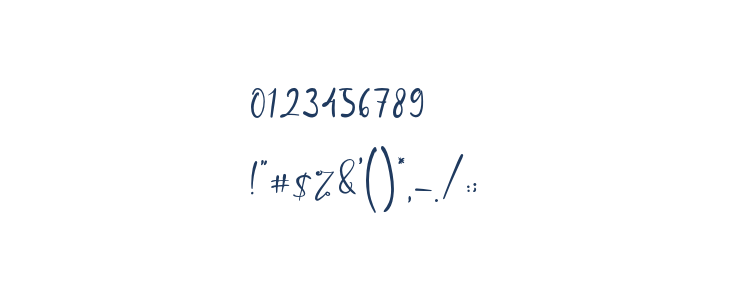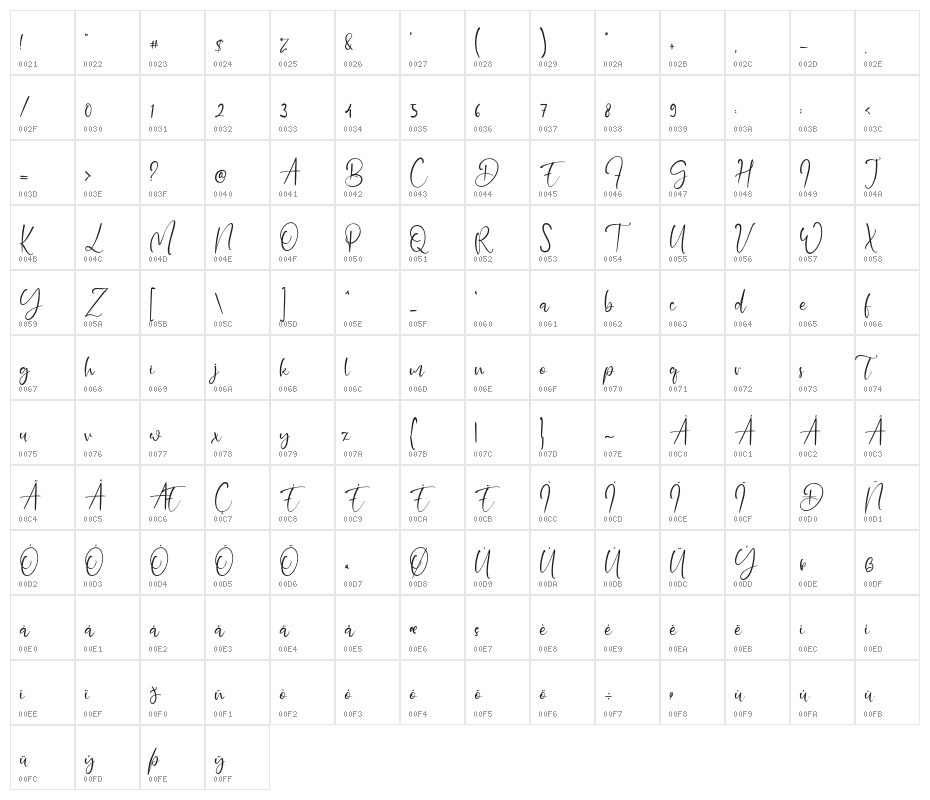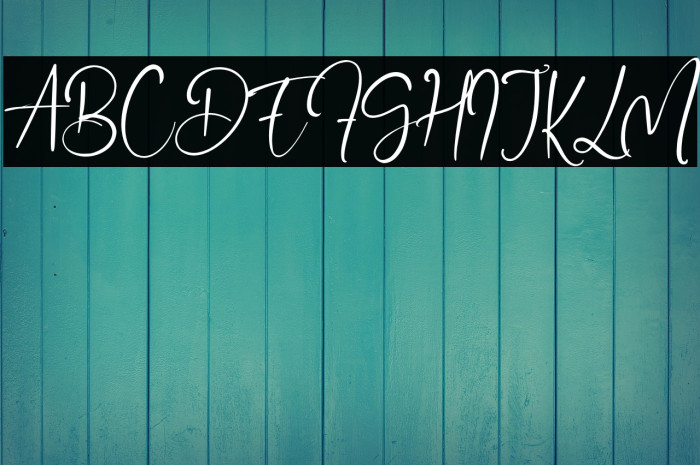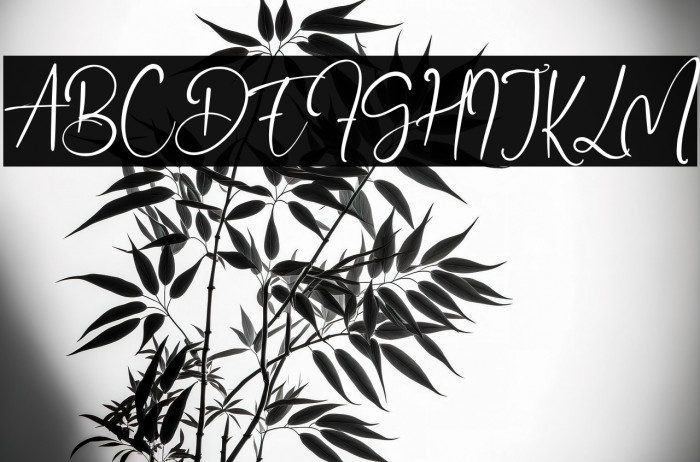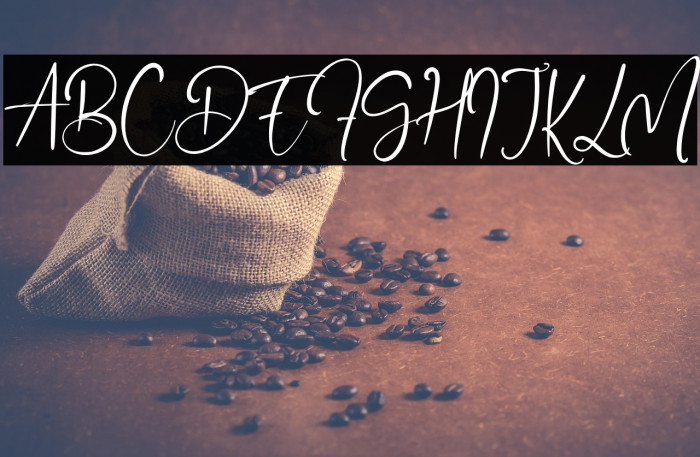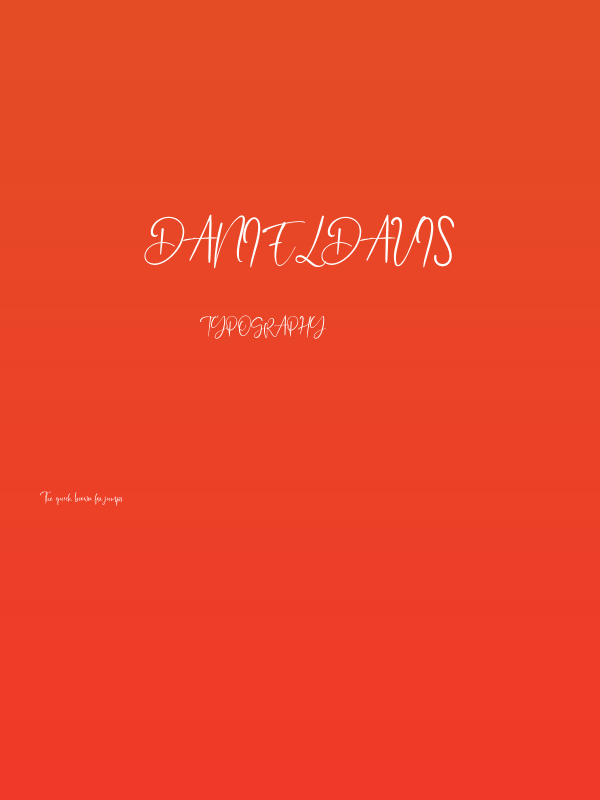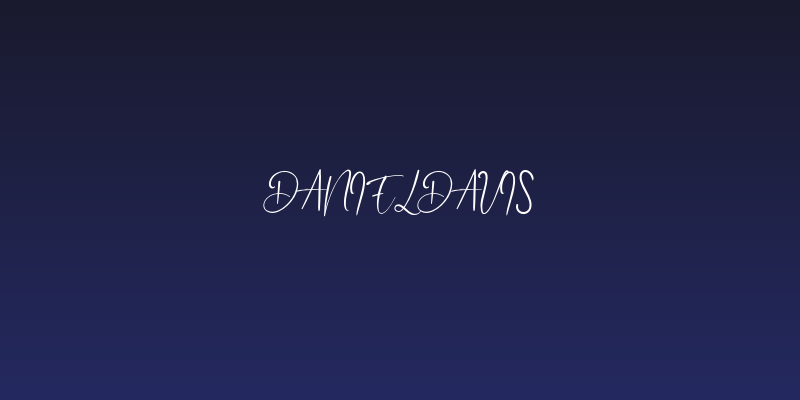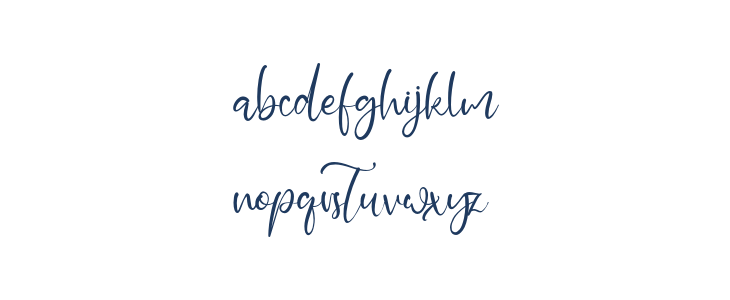
DanielDavis Font
DanielDavis Description
This font features an elegant and flowing script style, characterized by its smooth, cursive strokes and graceful curves. The uppercase letters are tall and slightly slanted, with decorative flourishes that add a touch of sophistication. The lowercase letters maintain a consistent flow, with some letters extending below the baseline, enhancing its handwritten appeal. The numerals are stylish and maintain the same fluidity as the letters. Special characters are creatively designed, complementing the overall aesthetic. This font exudes a sense of elegance and creativity, making it suitable for artistic and formal applications.
| Overall Style | Elegant, Artistic |
| Use Case | Logos, Invitations, Decorative Text |
| Proposed Projects | Ideal for wedding invitations, greeting cards, branding, and logo design. |